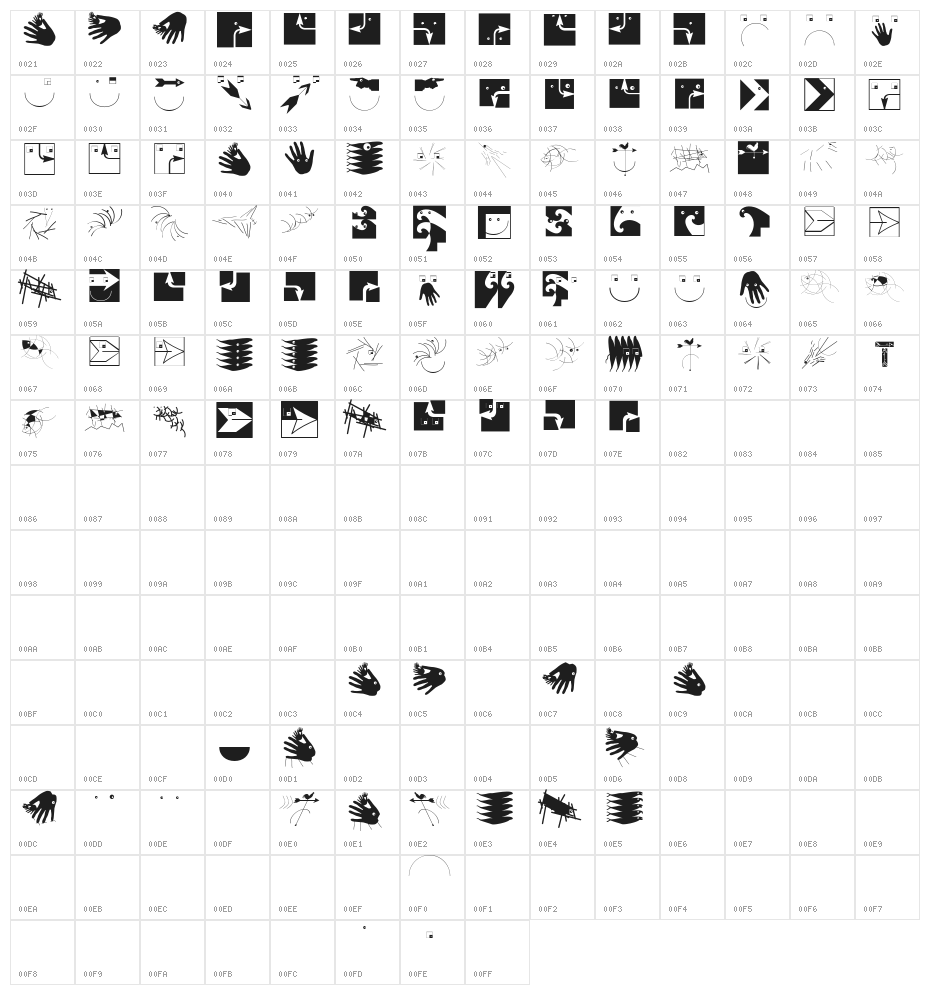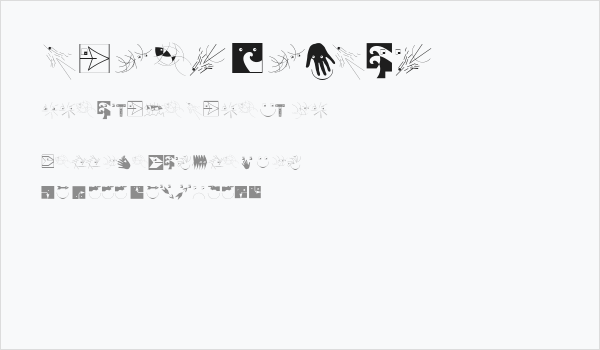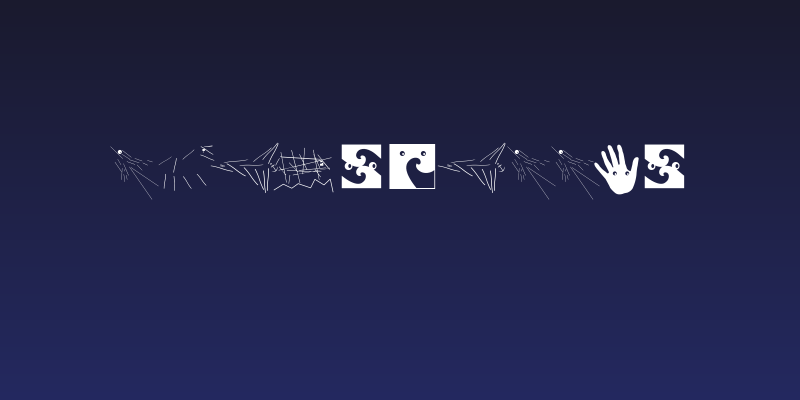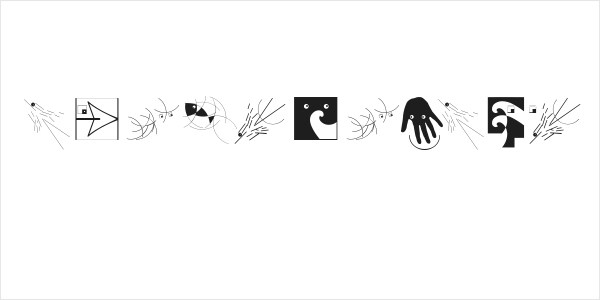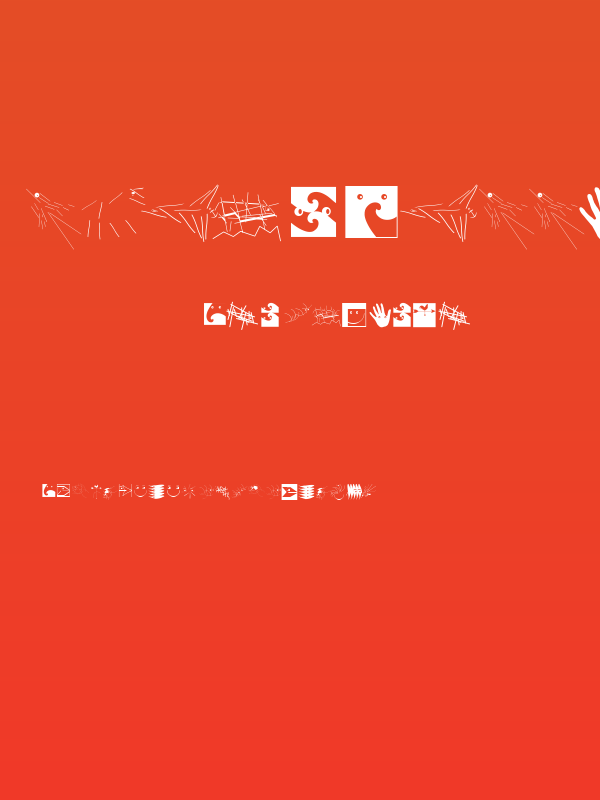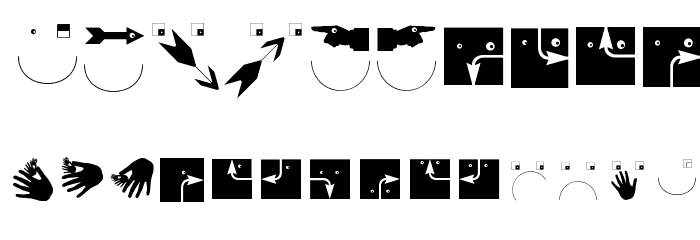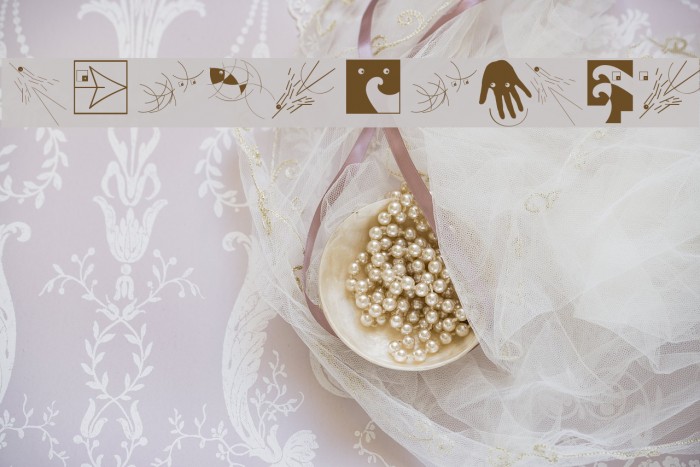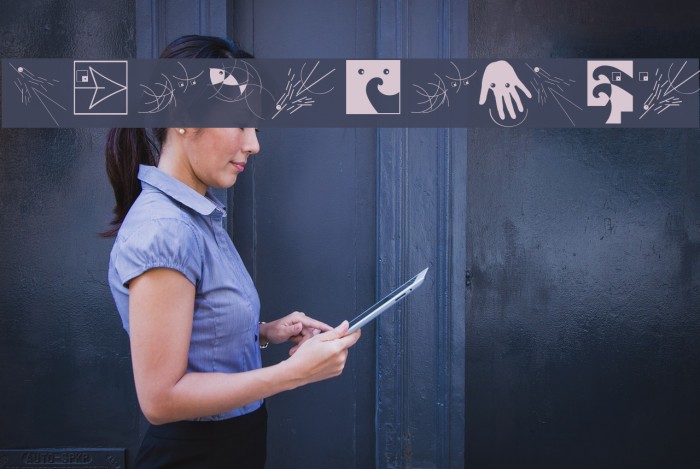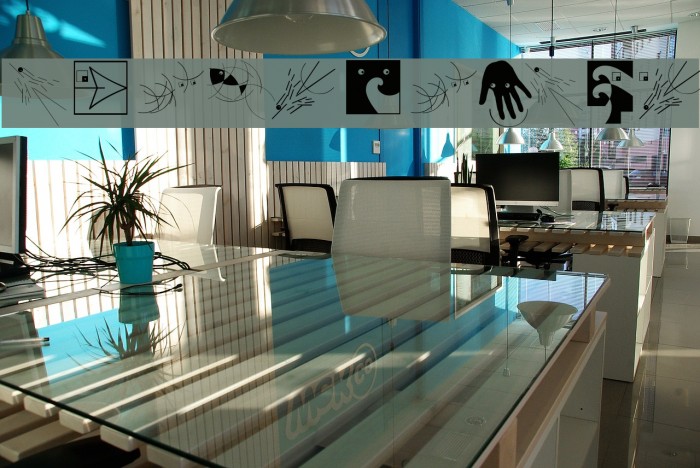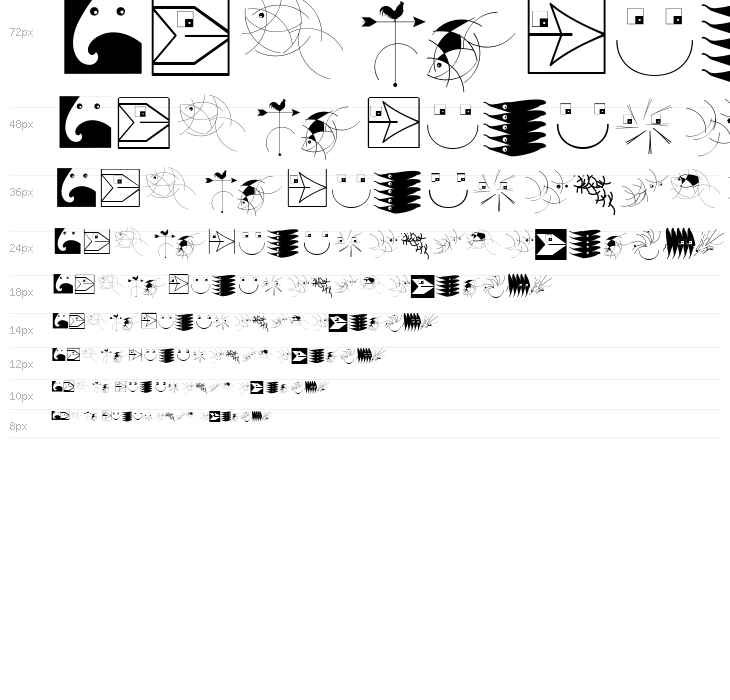
DingsUndDas Font
DingsUndDas Description
This is not a traditional font but rather a collection of abstract symbols and shapes. The characters are composed of various geometric and organic elements, including hands, arrows, and abstract faces. The design is highly decorative and artistic, with a playful and whimsical style. Each symbol is unique, featuring a mix of bold and thin lines, and some incorporate negative space creatively. The overall appearance is dynamic and visually engaging, making it suitable for artistic and creative projects.
| Use Case | Logos, Artistic designs, Posters |
| Proposed Projects | Ideal for creative projects such as posters, album covers, or digital art where a unique and artistic touch is desired. |